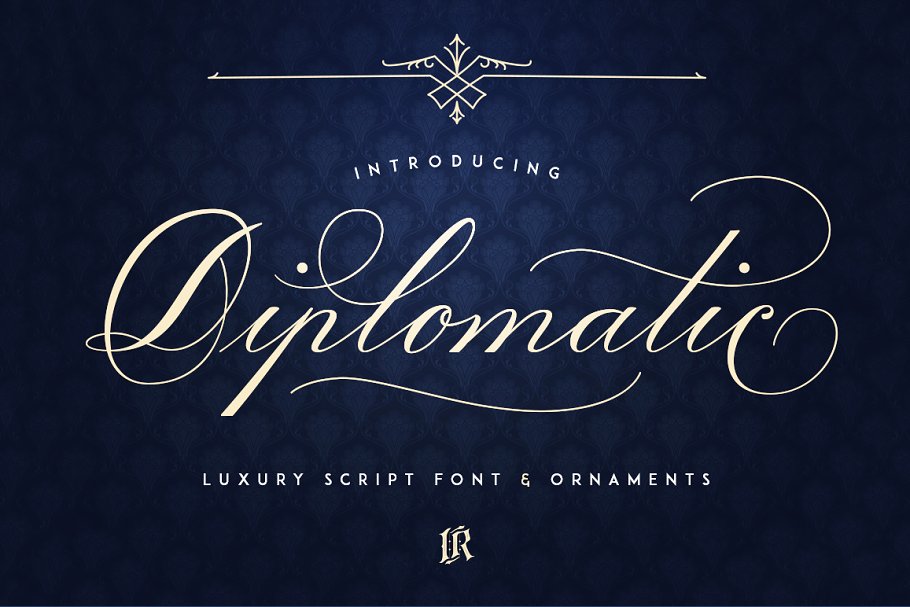
Introducing Diplomatic Font, the ultimate formal script font for all your creative needs! This font is perfect for wedding invitations, magazines, social media, restaurant menus, greeting cards, birthday invitations, headers, and many more.
Created by Ivan Rosenberg, Diplomatic Font is a brush font that comes with a complete set of lowercase and uppercase characters, a large range of punctuation ligatures, numerals, and multilingual support. With over 636 glyphs, this font offers up to 14 alternates for each character, including 8-14 alternates for lowercase characters and 1-3 alternates for uppercase characters.